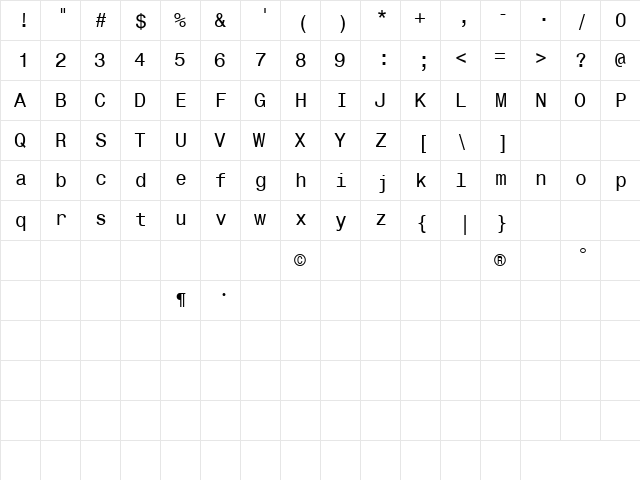
CorporateMono Regular
Design Context for CorporateMono Typeface
CorporateMono uses fixed-width spacing throughout, giving it the structured, systematic character associated with coding environments and technical documentation.
A natural fit for code editors, technical documentation, developer-focused branding, and terminal-inspired UI.
Pro Tip: Pair CorporateMono with a proportional sans for UI contexts where code-style labels and regular body copy need to coexist.